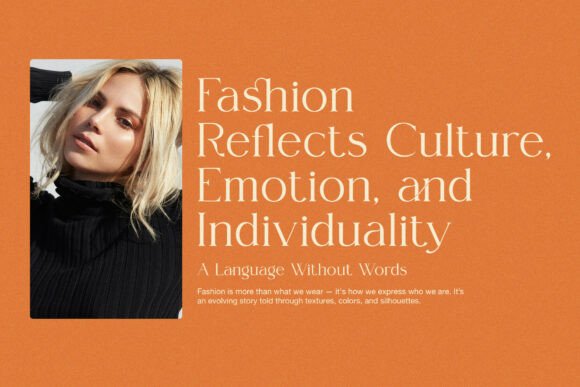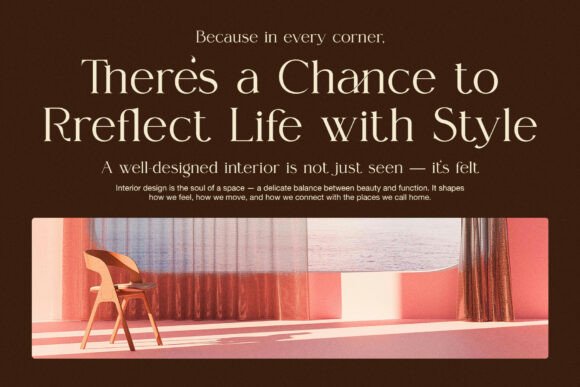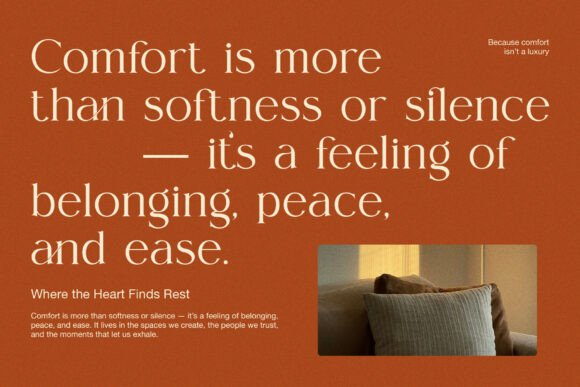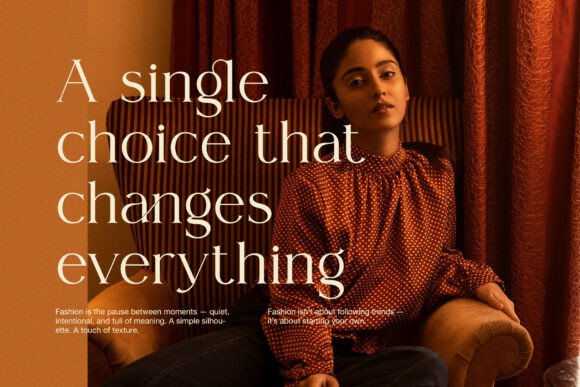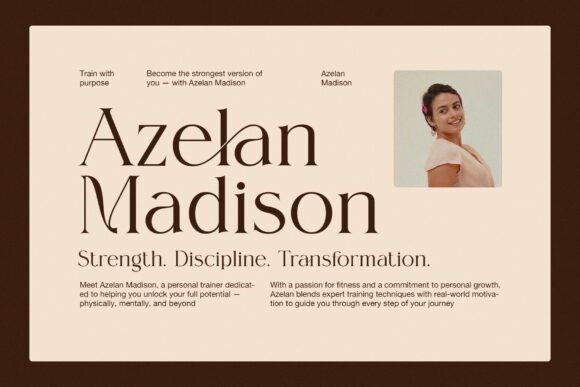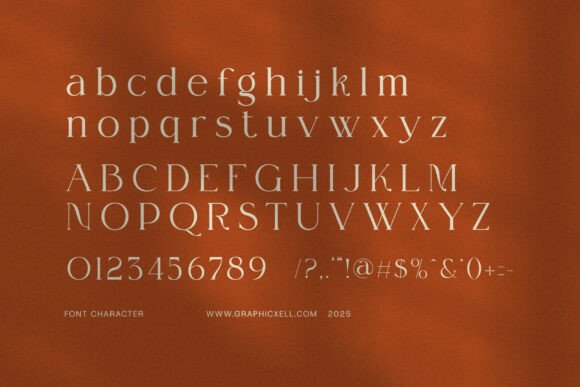
Introduction to Moglin Font
Moglin Elegant Serif Font is a refined blend of modern design and classic sophistication.
Designed with graceful proportions and smooth curves, this font brings elegance to every project Whether youโre creating for print or digital, Moglin delivers a clean and luxurious look that instantly elevates your design.
Moglin Font offers exceptional quality and versatility, making it a valuable addition to your design toolkit. Whether you’re creating for personal projects or commercial use, Moglin Font delivers professional results.